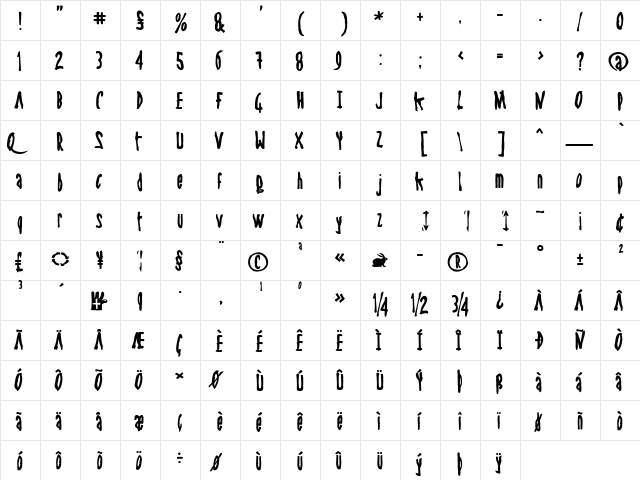
Steel Bold
Design Context for Steel Typeface
Steel is a composed and adaptable typeface that performs quietly and consistently across a wide range of design contexts. The heavy weight commands attention and anchors typographic hierarchies.